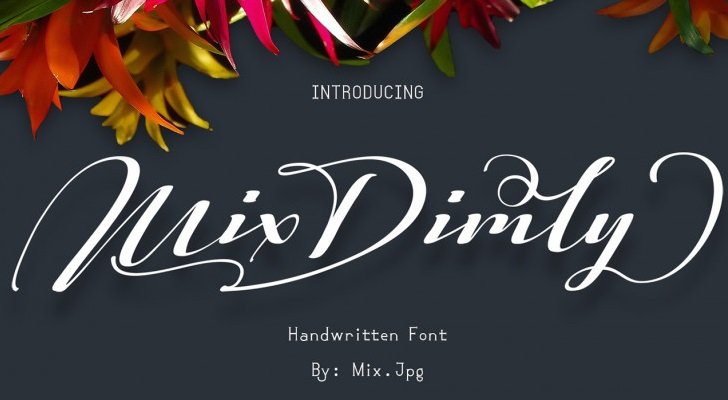
Mix Dimly Script Font
Mix Dimly Script Font is a lovely and timeless handwritten font created by Mix Jpg with contextual alternate features. It is perfect for branding, wedding invites and cards. It includes a full set of uppercase and lowercase letters, numerals, a large range of punctuation and ligatures. All lowercase letters include ending swashes, which makes the font look fabulous!